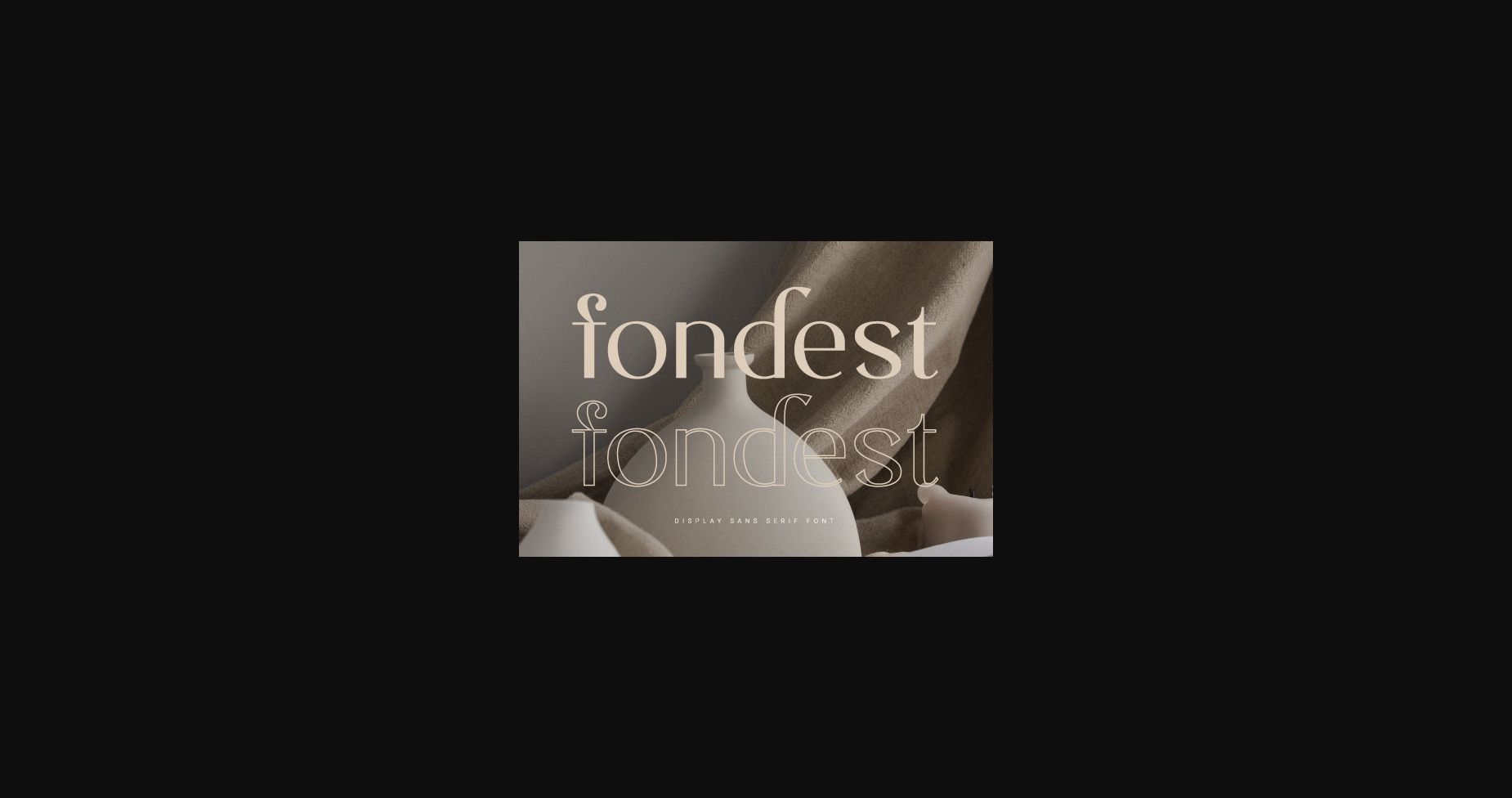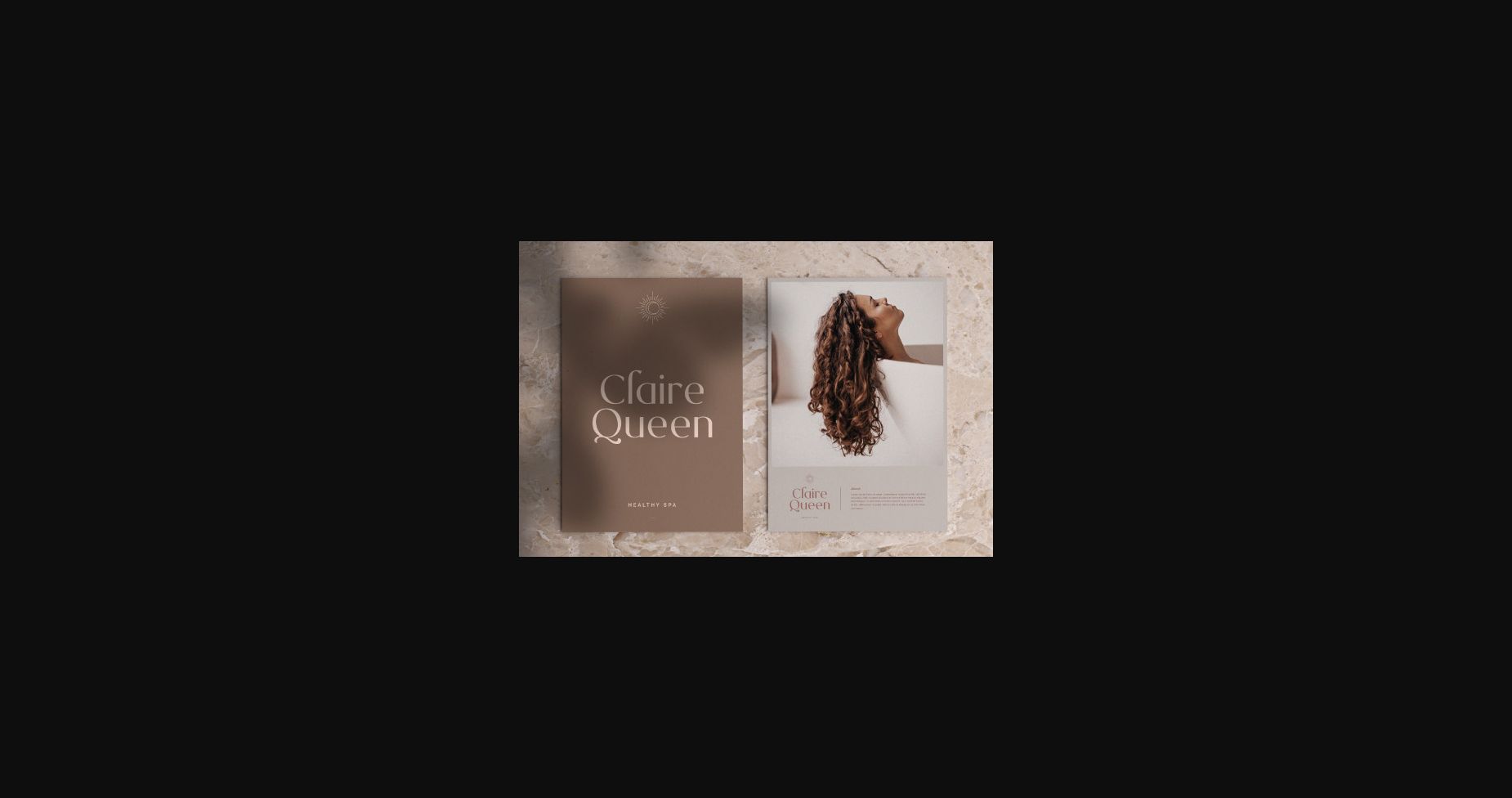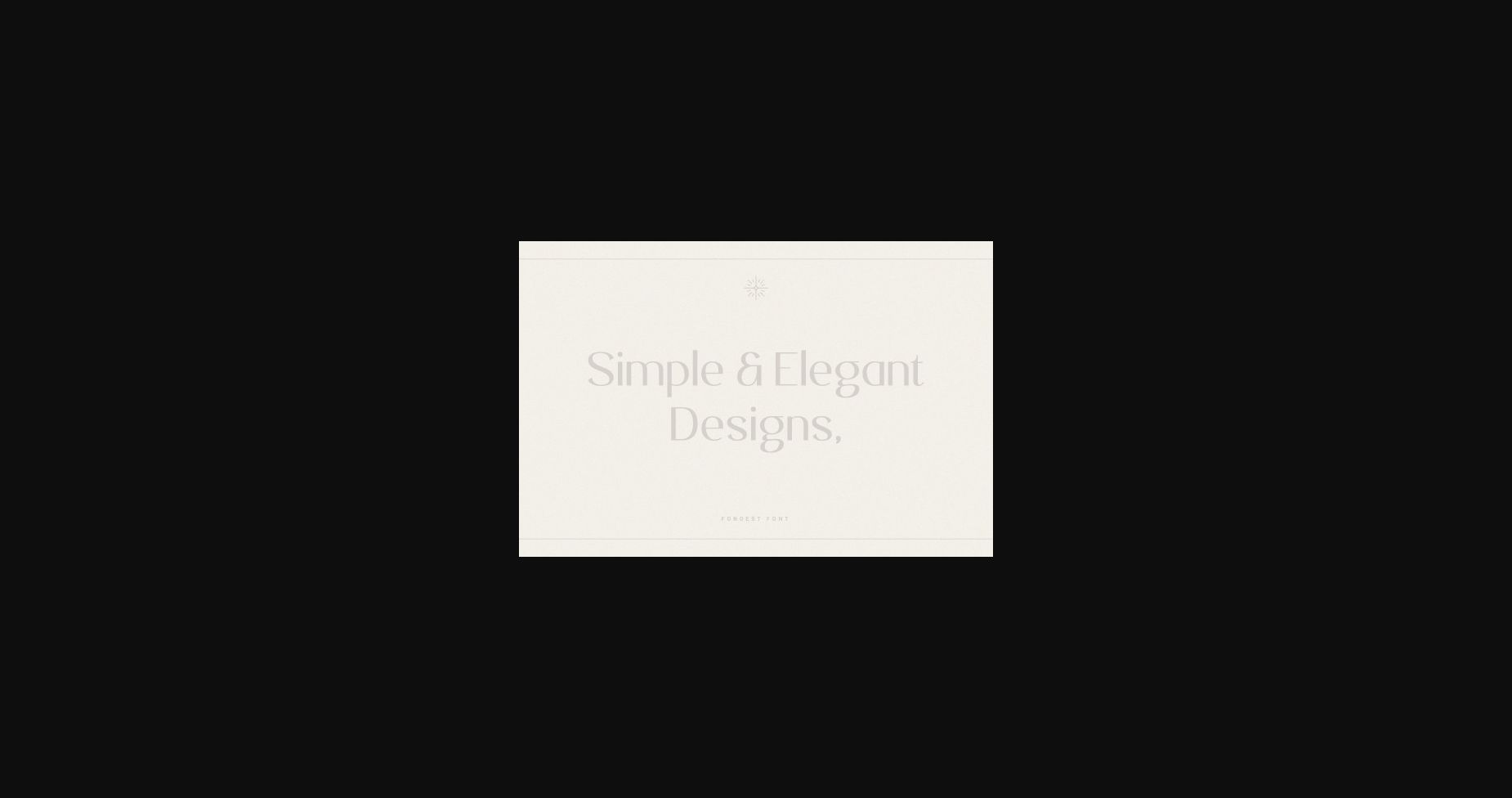
About Fondest Font
Fondest is a cool and neat sans serif font. It will elevate a wide range of crafting ideas, from cards, to branding, labels and much more.